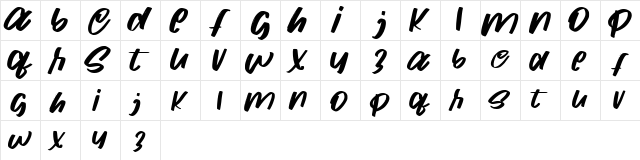
Christmas sweet Regular
Design Context for Christmas sweet Typeface
Christmas sweet is a composed and adaptable typeface that performs quietly and consistently across a wide range of design contexts.